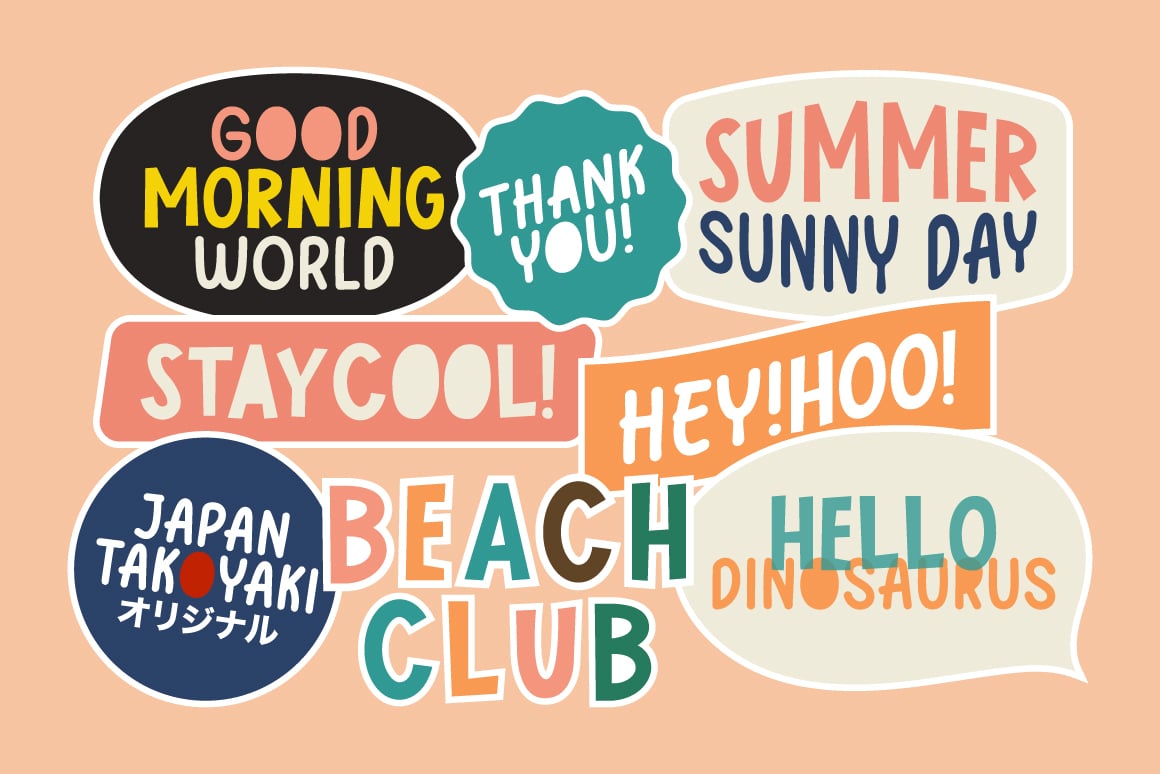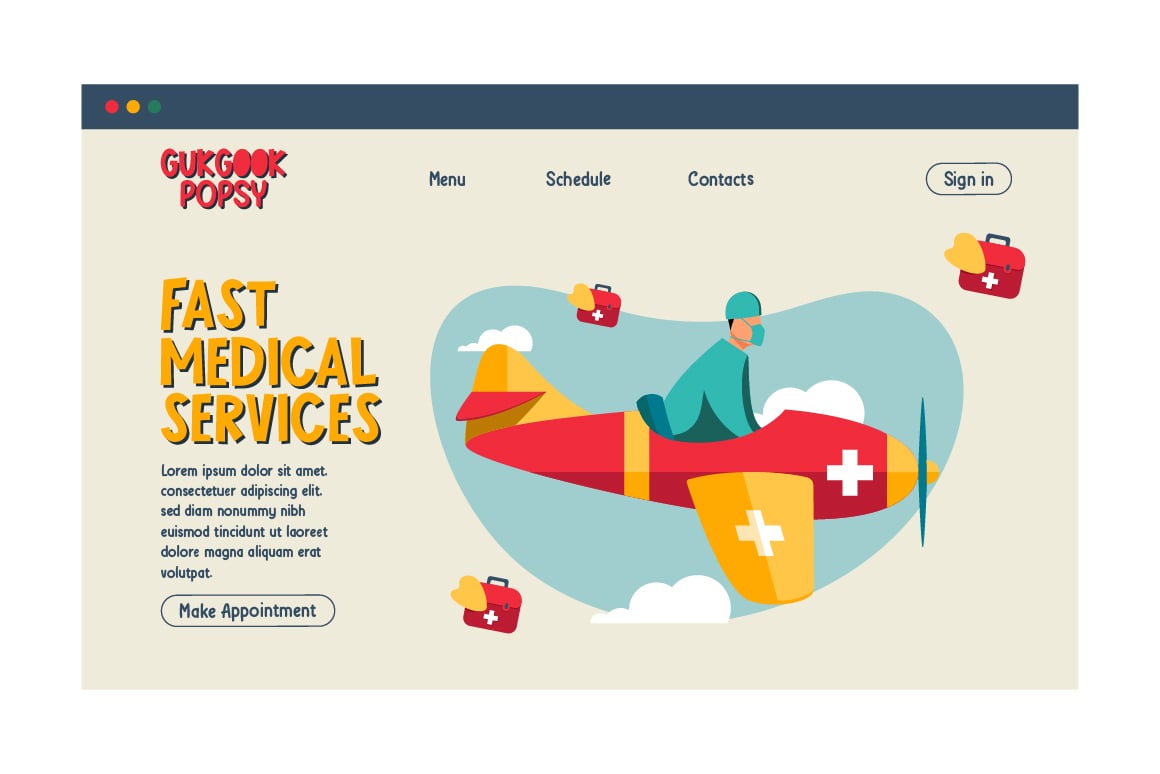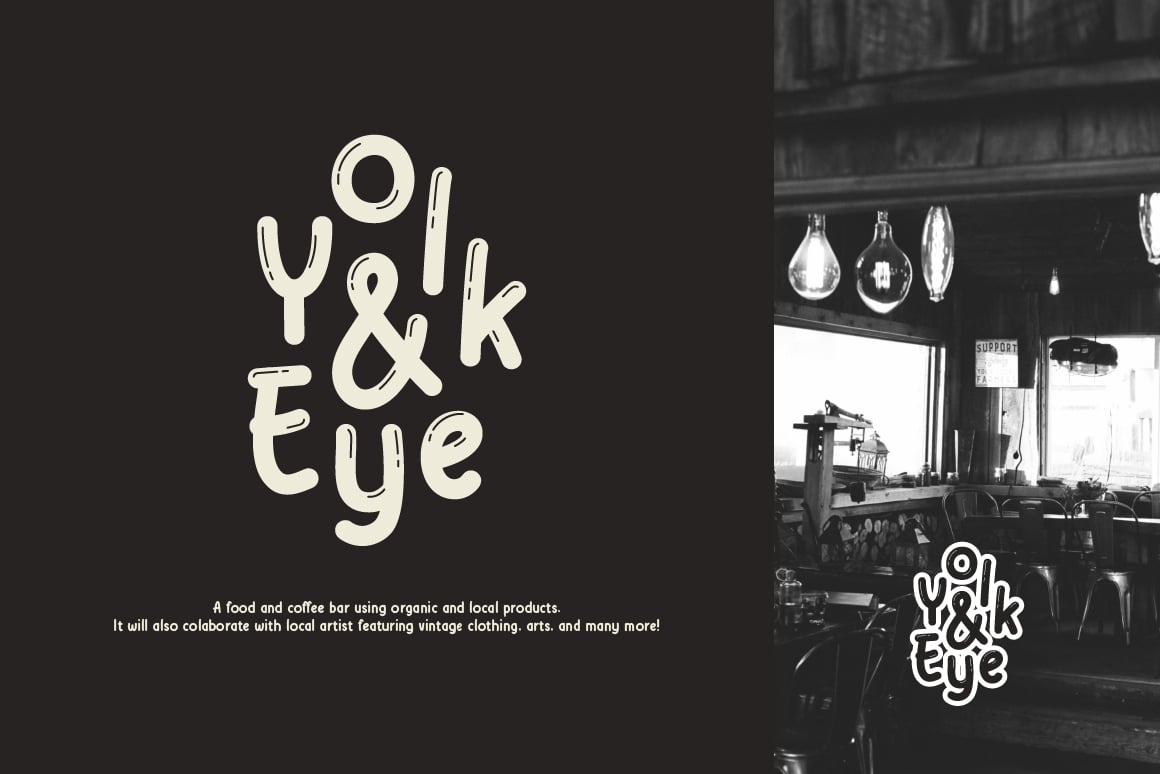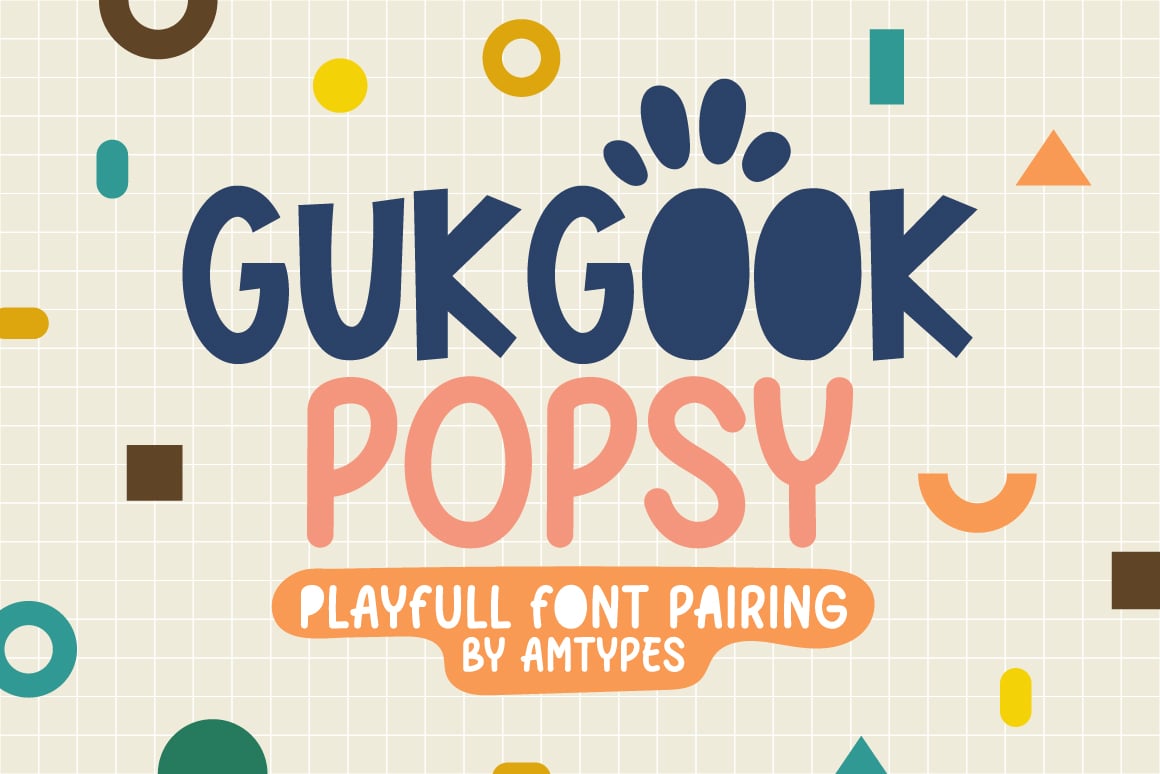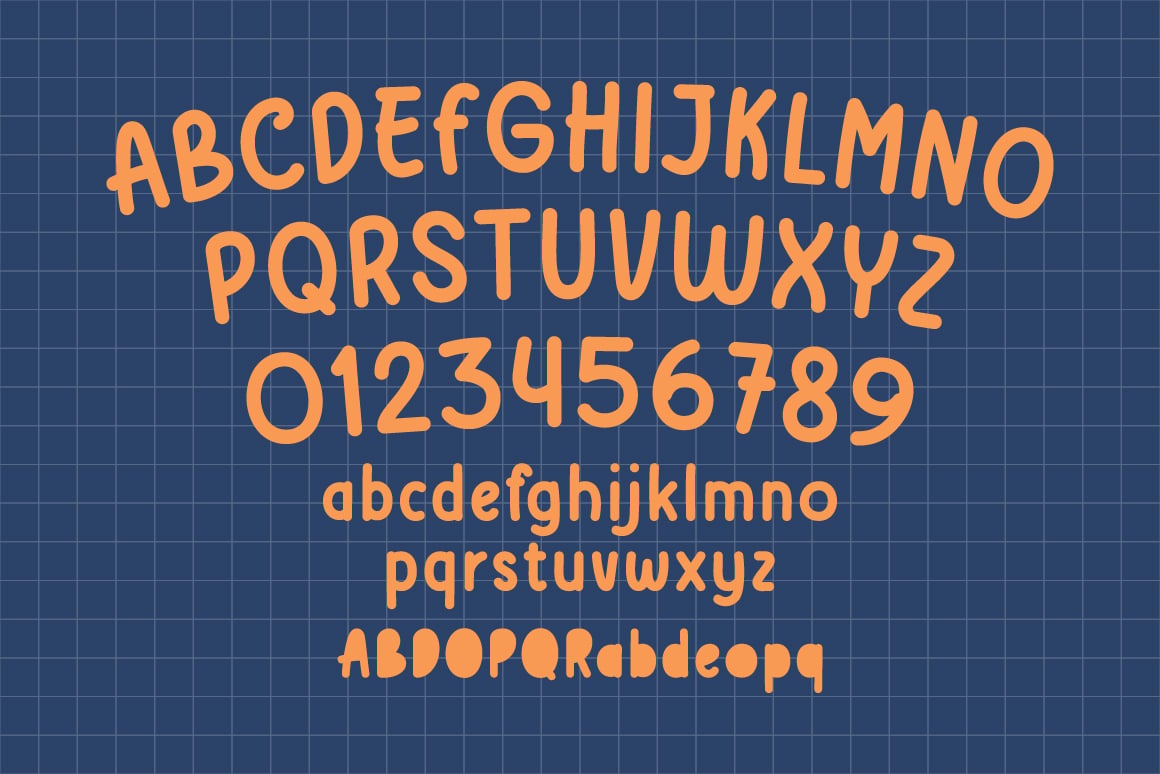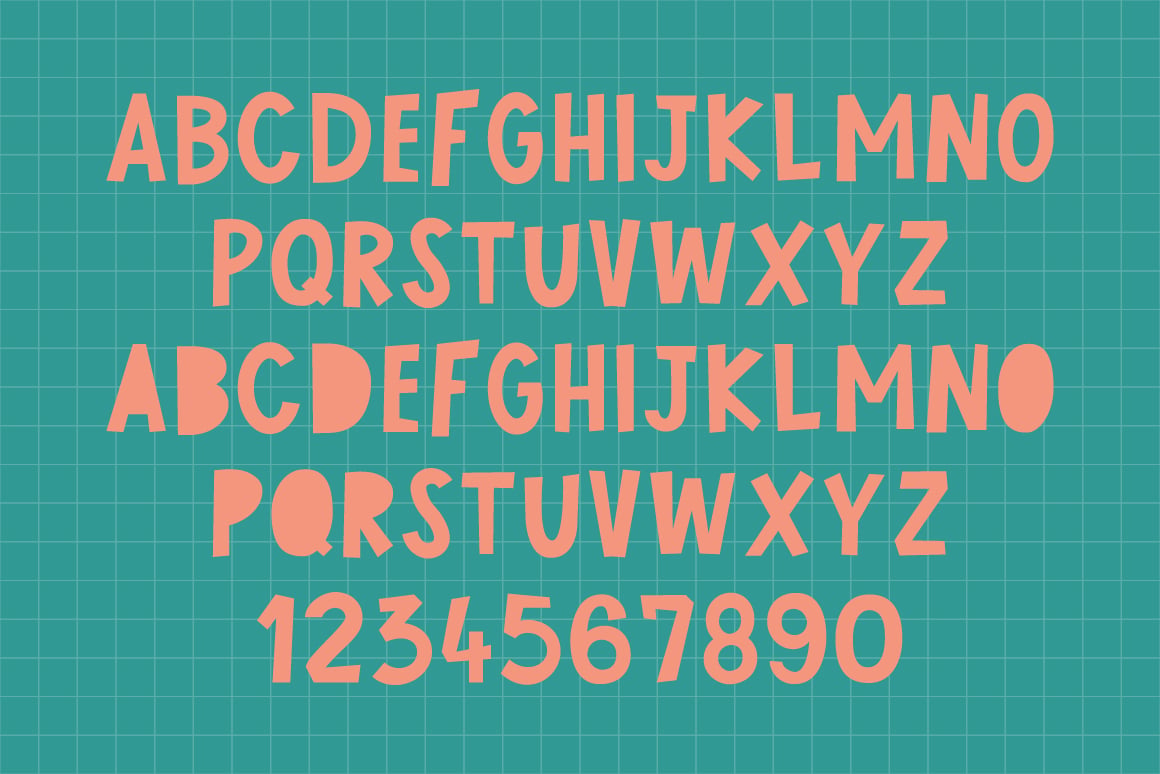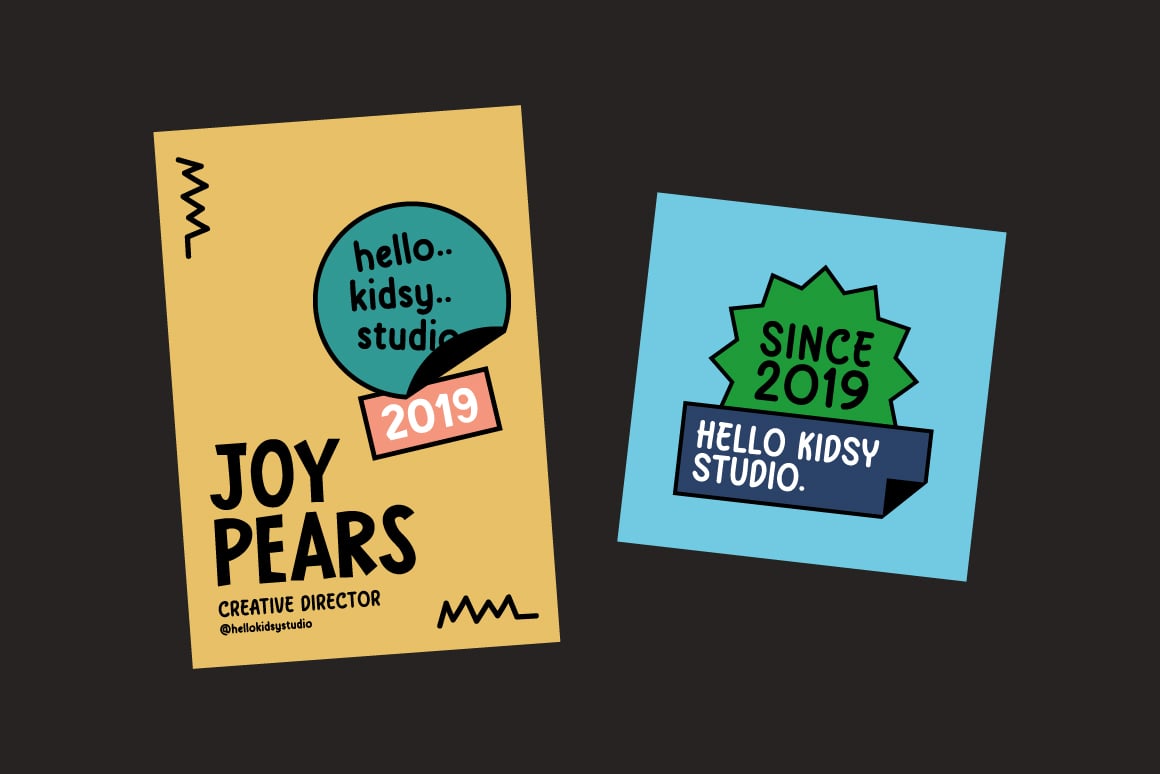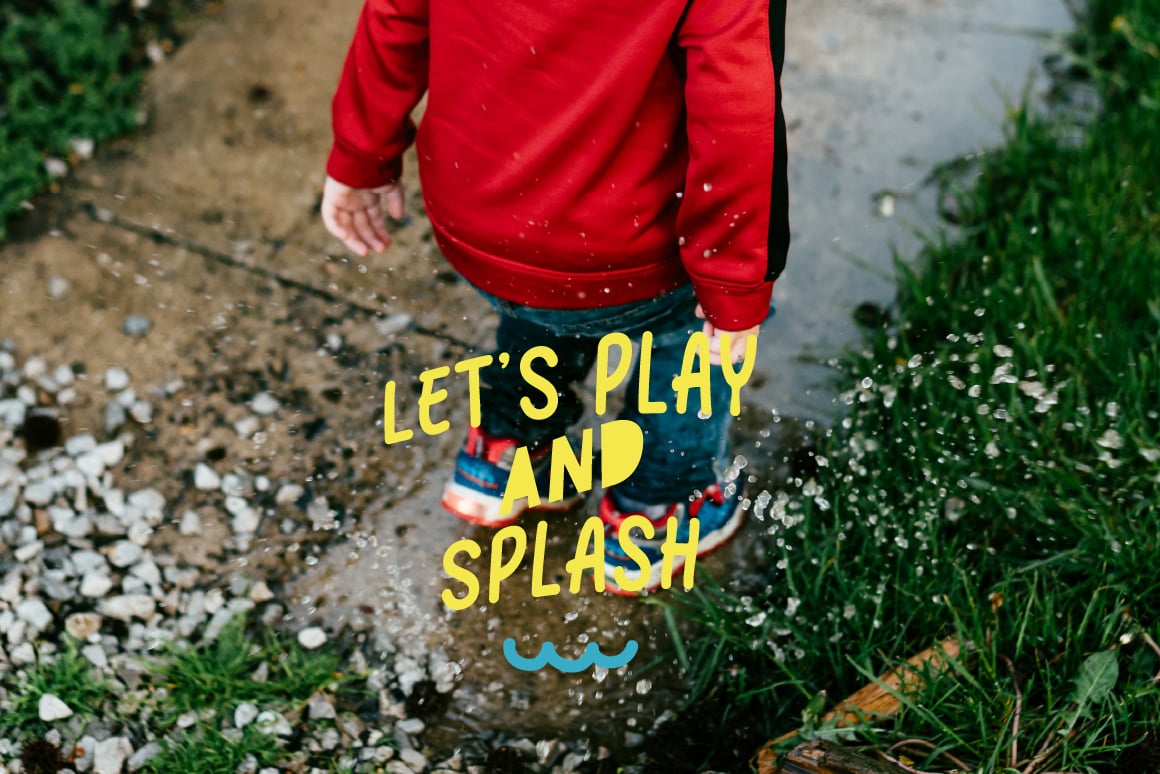
Gukgook Popsy
Gukgook Popsy is a playful font pairing, one of font is all caps cutout-style font and other font is uppercase and lowercase letters have filled letters. Pick and choose which letters you want filled to get the look you want and enjoy.